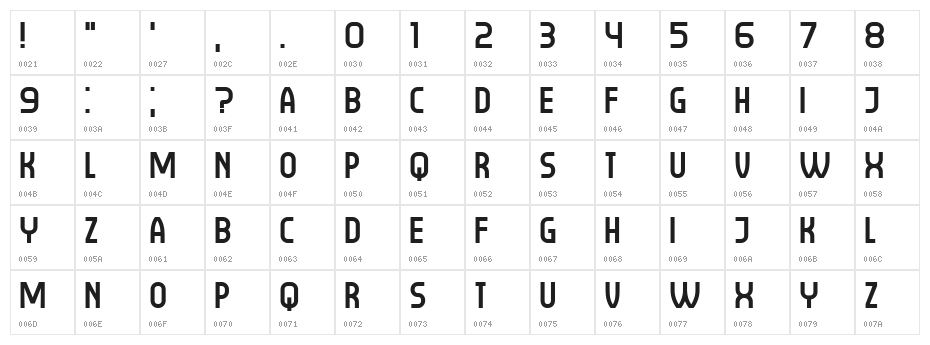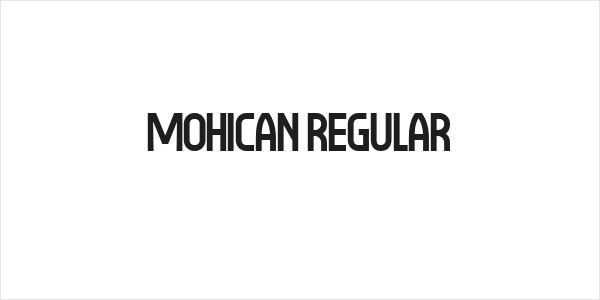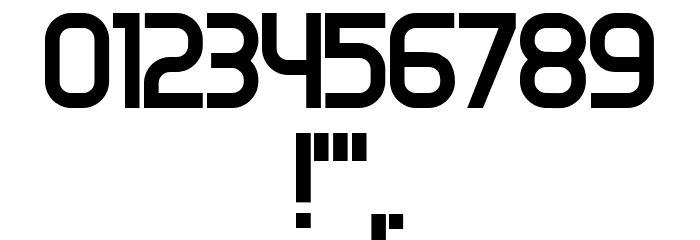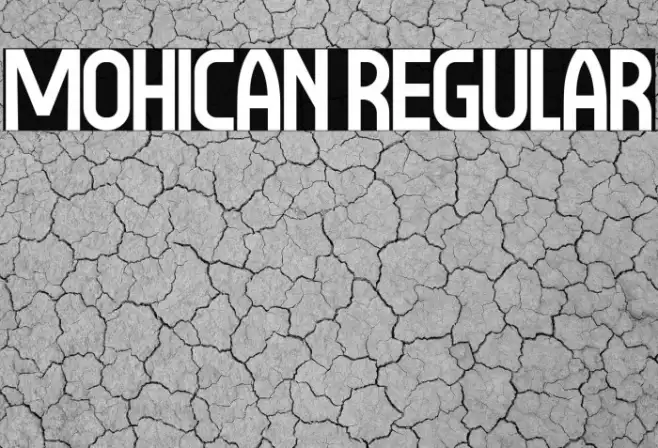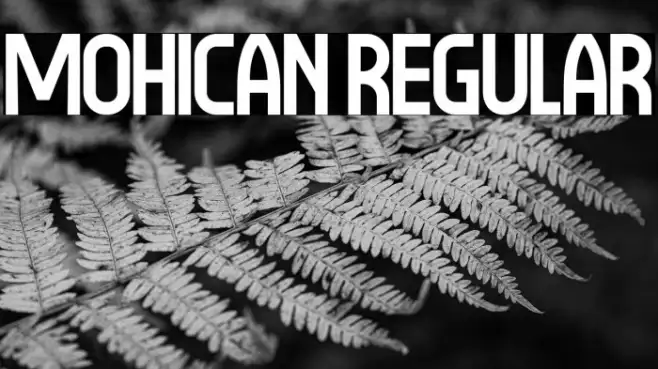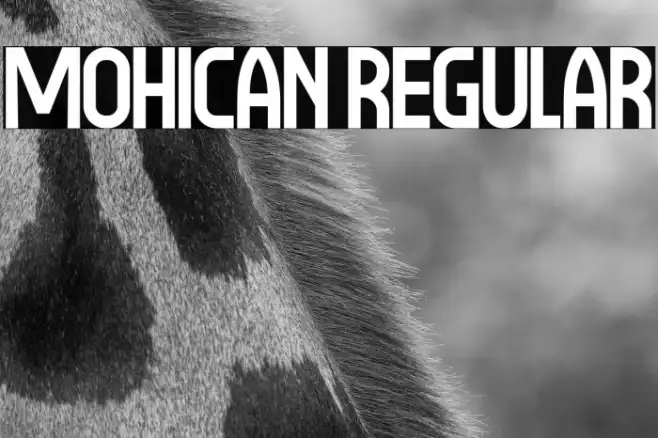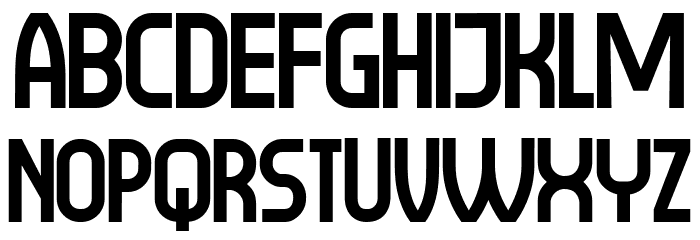
Mohican Regular Font
Mohican Regular Description
This font features a bold and geometric design with a modern aesthetic. The characters are constructed with clean, straight lines and sharp angles, giving them a futuristic and tech-inspired appearance. The uppercase and lowercase letters maintain a consistent style, with a uniform stroke width that enhances readability. The numerals are equally bold, with a distinctive style that complements the overall design. Special characters are included, maintaining the same geometric and bold characteristics. This font is ideal for projects that require a strong and modern visual impact.